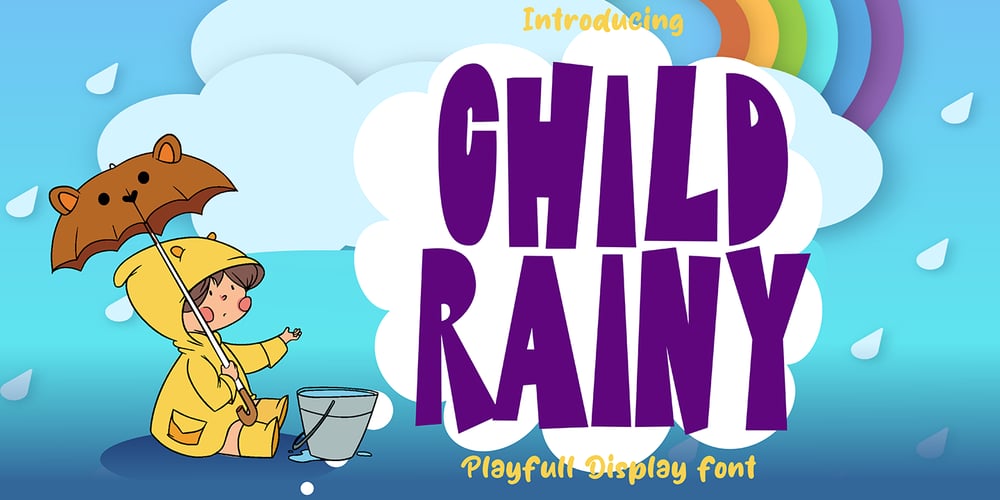
Child Rainy Font Family was designed by Sipanji and published by Sipanji21. Child Rainy contains 1 styles and family package options. Child Rainy” is a charming and whimsical display font characterized by its cute and quirky nature, featuring sharp corners in every letterform. Fonts with sharp corners often exhibit a playful yet edgy design, adding a unique and distinctive touch to the characters.This font can be an excellent choice for various creative projects, especially those targeting children’s themes, playful designs, or any context where a combination of cuteness and a touch of edge is desired. Its blend of adorable and sharp elements can lend a distinctive visual appeal to your designs.